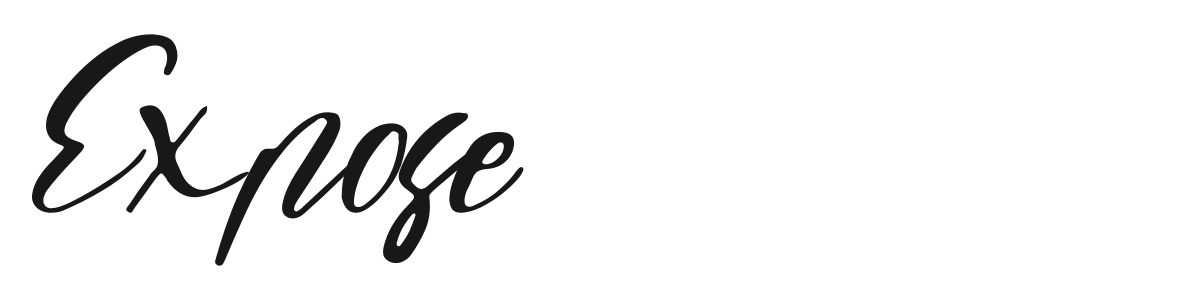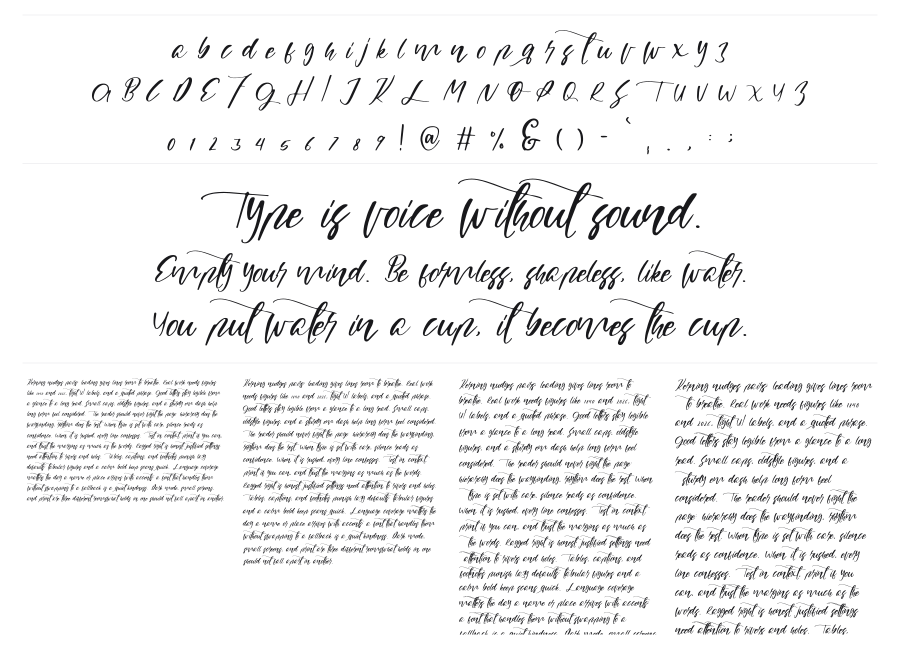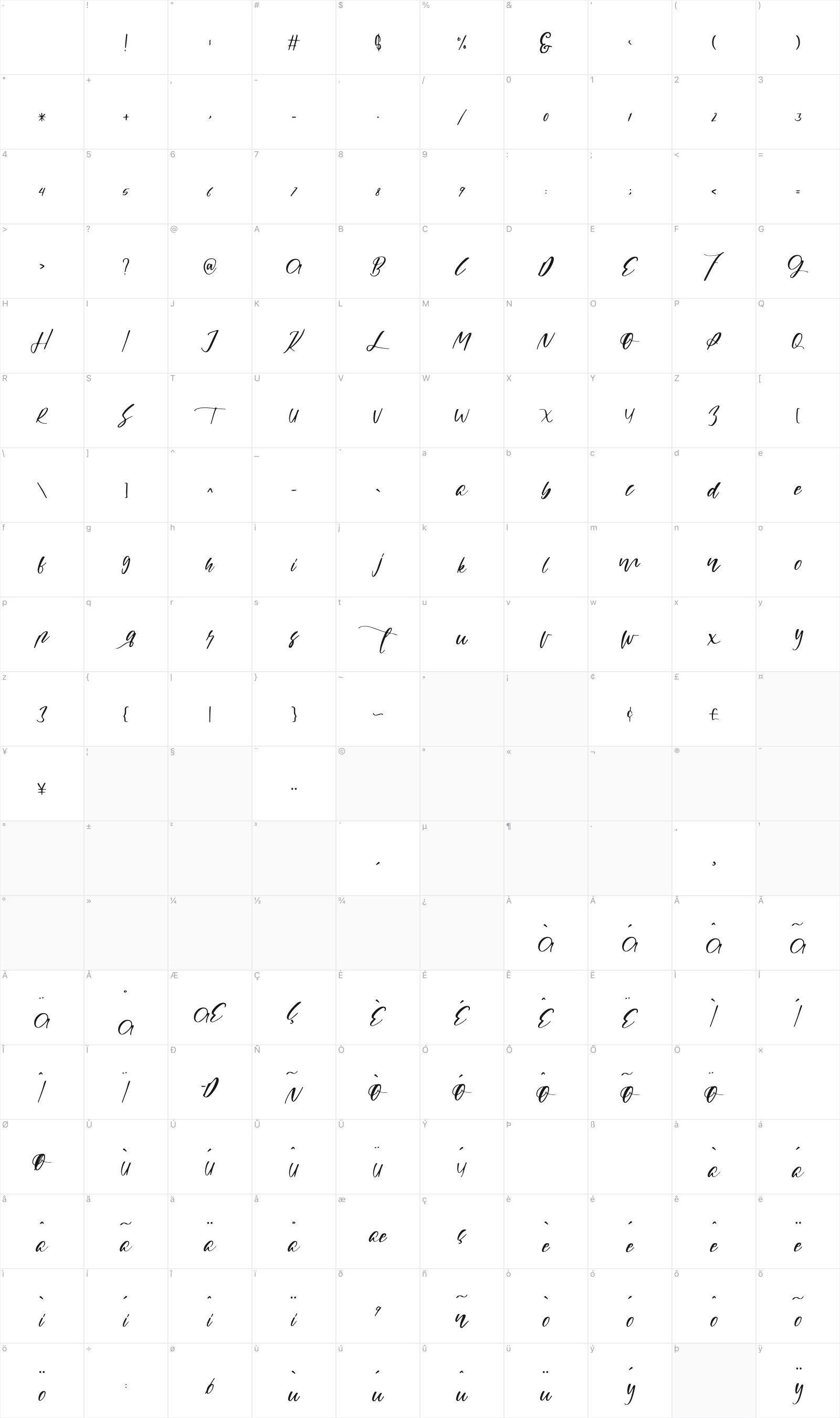
Expose
Expose is a lively brush script with dramatic stroke contrast and looping, connected characters that bounce with calligraphic energy. Long sweeping ascenders and descenders give words an animated, hand-lettered quality that reads as both casual and polished. It thrives on wedding invitations, branding, and any project that needs warmth with a confident flourish.